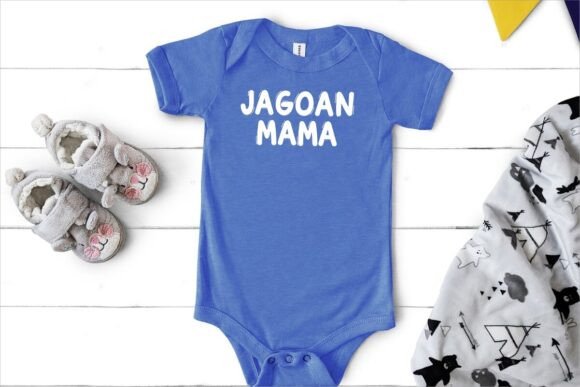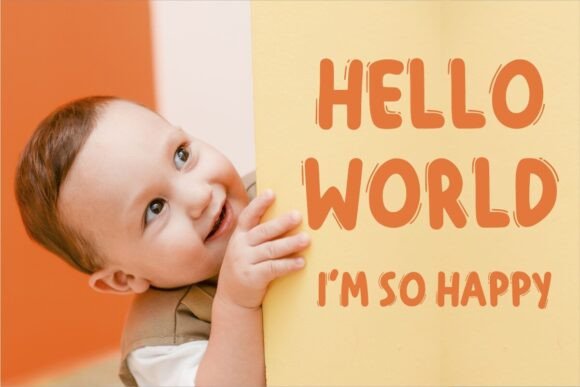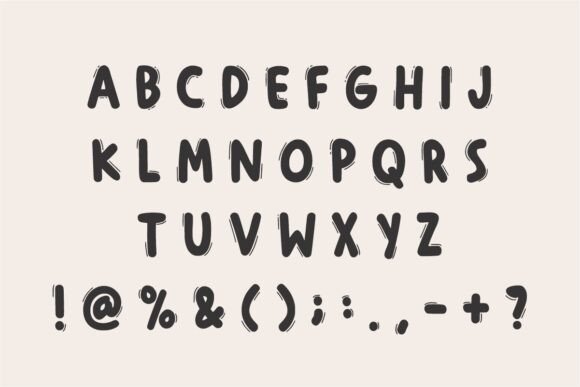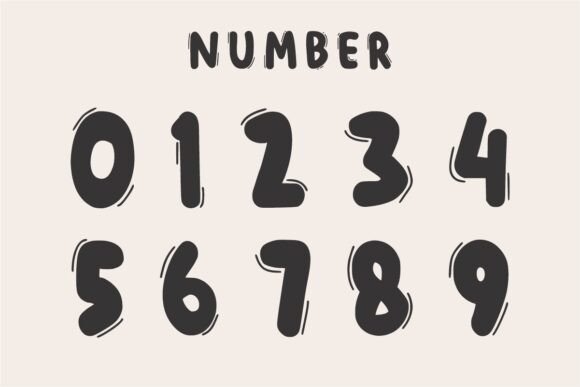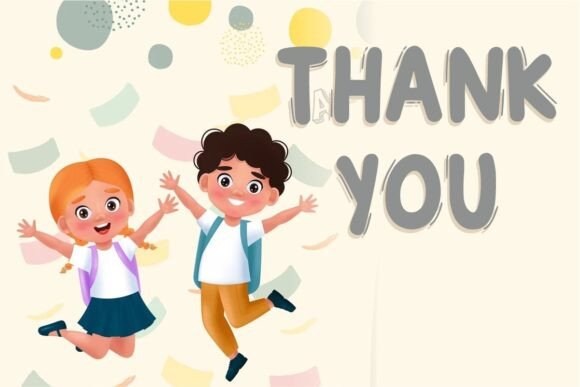
The Joy of Bounce Kids Font
Who among us hasn’t had a spark of creativity strike at the most unexpected moment? Maybe it’s the sight of a child’s smile as they discover a new crayon, or the sound of laughter from a playground. Whatever the trigger, it’s moments like these that remind us of the importance of playfulness in our designs. For designers working on projects that require a touch of whimsy, Bounce Kids Font is the perfect partner in crime.
This adorable display font is specifically designed for kids, playgrounds, and school themes, making it an absolute gem for designers looking to add a splash of fun to their work. Whether you’re crafting, creating digital designs, or making presentations, Bounce Kids Font is the perfect addition to your toolkit. With its versatility and charm, it’s a valuable asset for any designer looking to add a playful touch to their projects.
Bounce Kids Font Key Features
- Font Family: Bounce Kids is a playful and modern sans-serif font designed for children’s content.
- Unique Characteristics: The font features a bouncy and energetic feel, with rounded edges and a subtle texture that adds a playful touch to children’s content.
Bounce Kids Font Review
Bounce Kids Font is an adorable, playful font designed specifically for kids’ content. It’s ✨ perfect for creating a fun and engaging atmosphere in children’s books, magazines, and online platforms. The font’s rounded edges and childlike feel instantly evoke a sense of whimsy and curiosity.
- ✨ Its versatility in usage, suitable for various design elements like headings, body text, and even logos.
- ✨ The font’s clear and legible design makes it easy to read, even for young children.
- ✨ The font’s unique style allows it to stand out in a crowded design market.
- ⚠️ The font may not be suitable for formal or professional design projects, as it has a more casual tone.
- ⚠️ The font’s bold weight may be a bit too bold for some designs, potentially overwhelming the content.
Overall, Bounce Kids Font is a great choice for designers working on children’s content. While it may have some limitations, its unique style and playful feel make it a standout choice for the right projects.
The Bounce Kids Font is perfect for:
- Children’s book covers and illustrations
- Children’s educational materials and worksheets
For best results, use the Bounce Kids Font in bold and playful combinations with other fonts to create a fun and engaging design.
Compared to Bounce Kids Font, Great Vibes is more elegant and sophisticated, making it suitable for a wider range of designs. It has a more fluid and connected feel, while Bounce Kids Font is more bouncy and playful.
Unlike Bounce Kids Font, Alex Brush has a more delicate and refined look, making it more suitable for designs that require a softer, more elegant feel.
Q: Are there any font pairing recommendations for Bounce Kids Font?
For optimal results, we recommend pairing Bounce Kids Font with clean sans-serif fonts like Open Sans or Lato. This combination creates a harmonious balance between playful and professional typography.